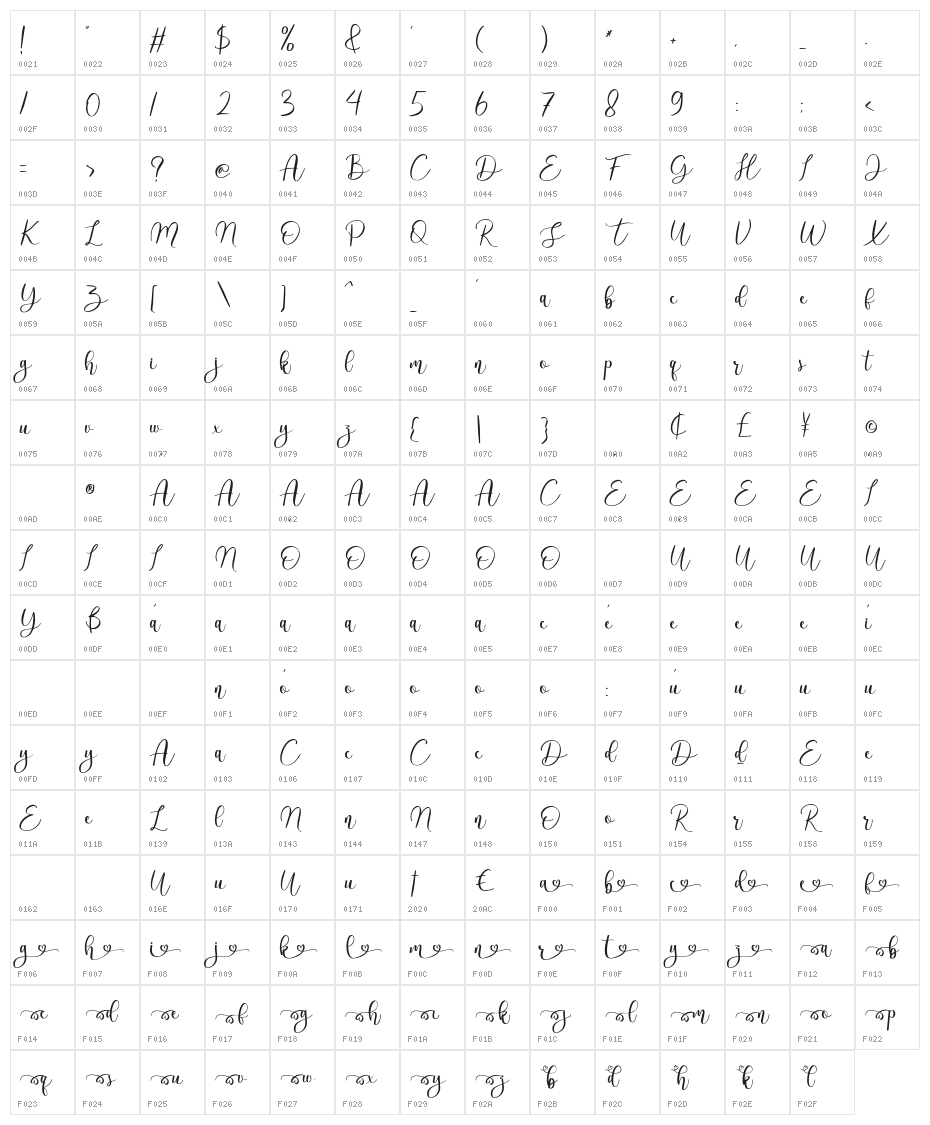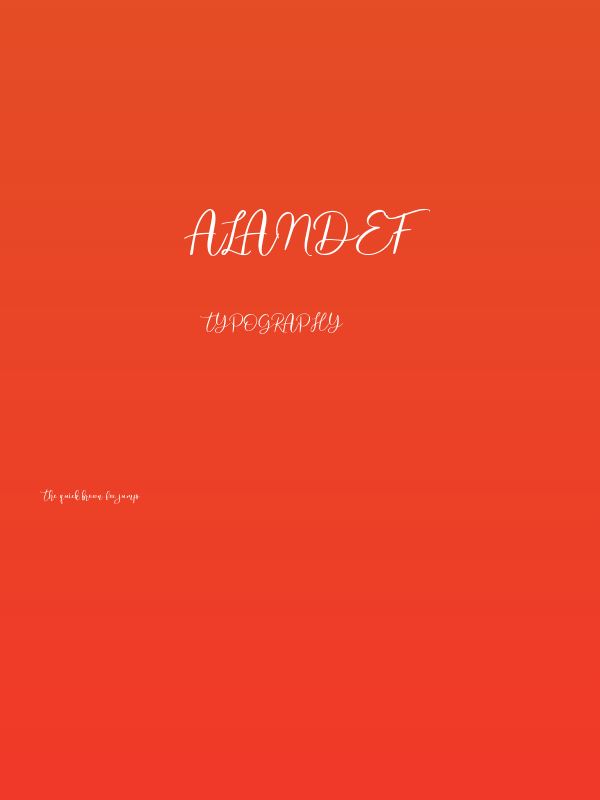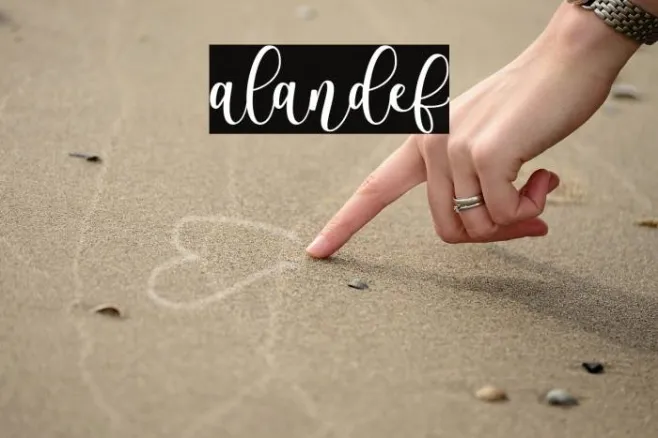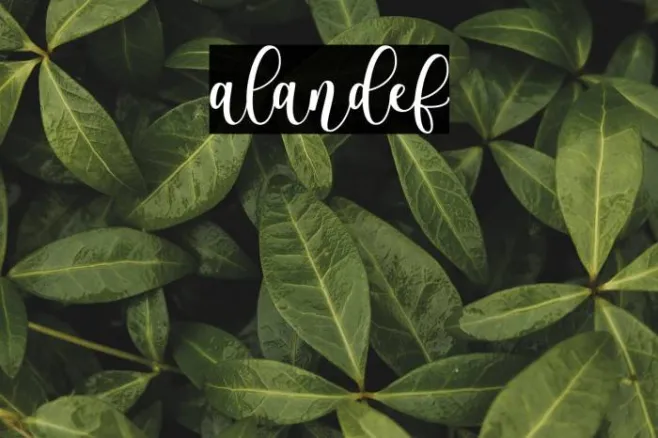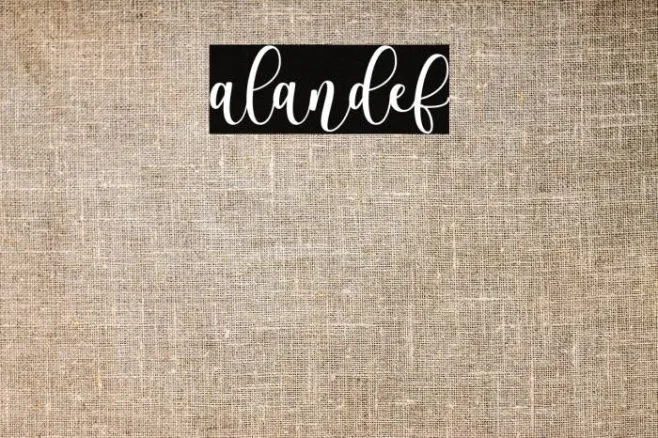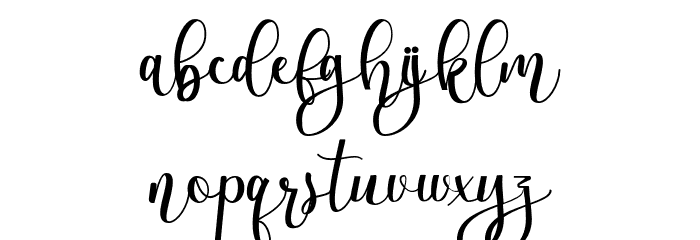
alandef Font
alandef Description
This font exudes a modern and elegant script style, characterized by its fluid and graceful strokes. The uppercase letters are bold and sweeping, with a consistent slant that adds a dynamic feel. The lowercase letters maintain a cohesive flow, with some characters featuring unique loops and flourishes that enhance its decorative appeal. The numerals are clear and legible, maintaining the script's overall aesthetic. Special characters are thoughtfully designed to match the font's elegant style, making it versatile for various applications.
| Proposed Projects | Ideal for wedding invitations, branding, greeting cards, and elegant packaging designs. |